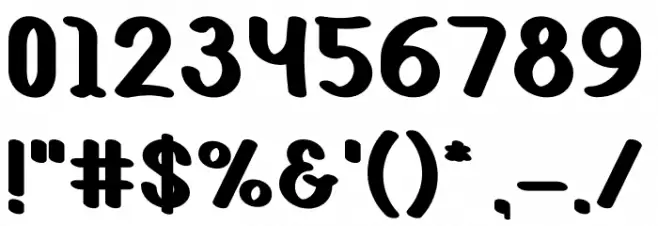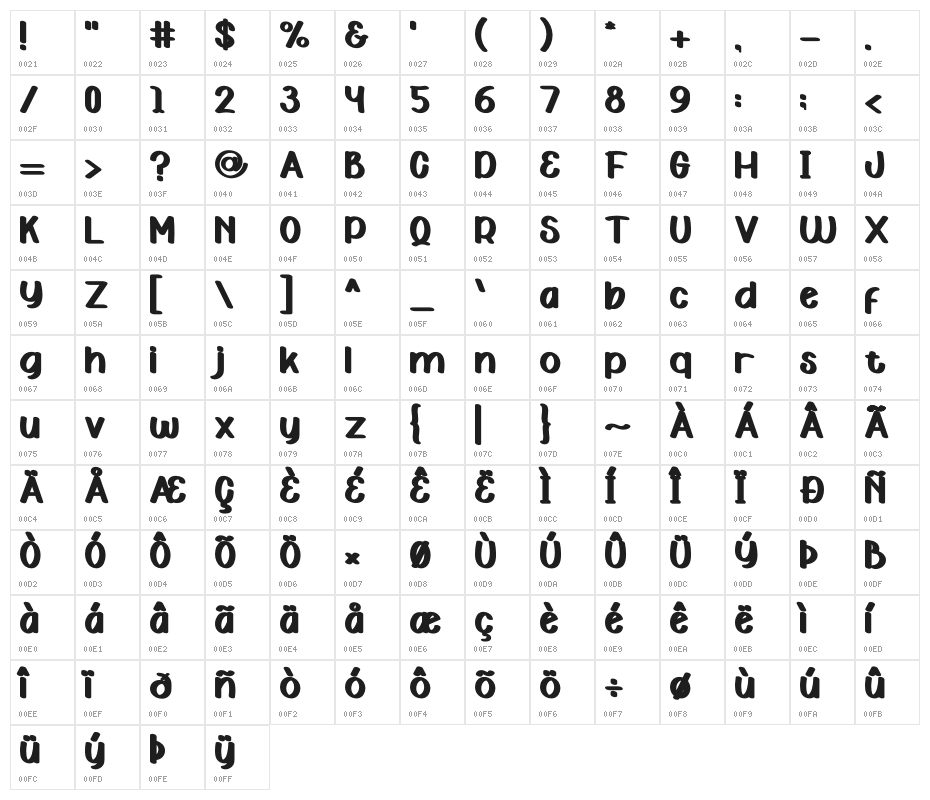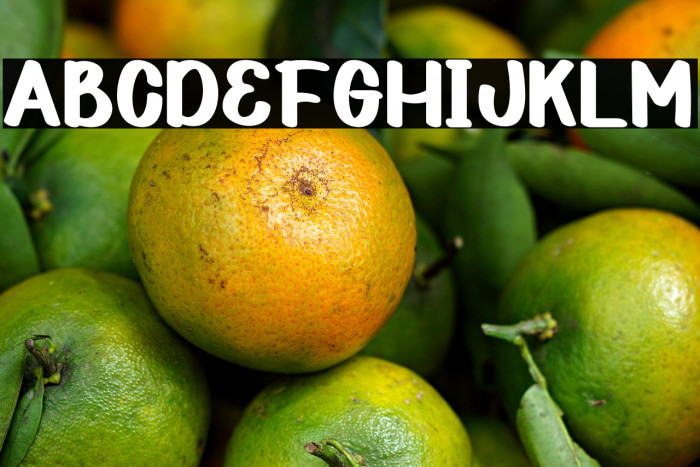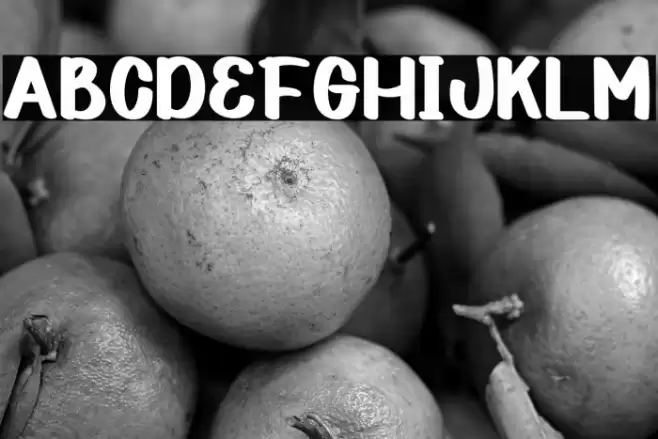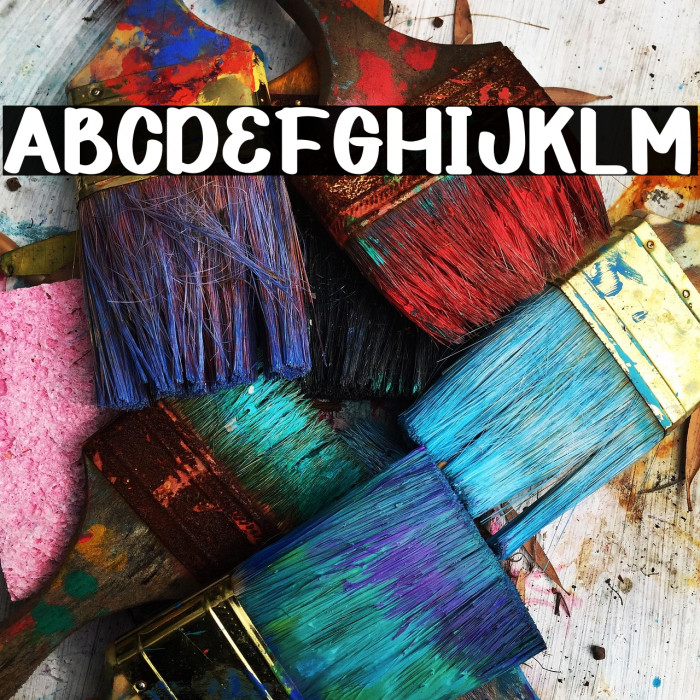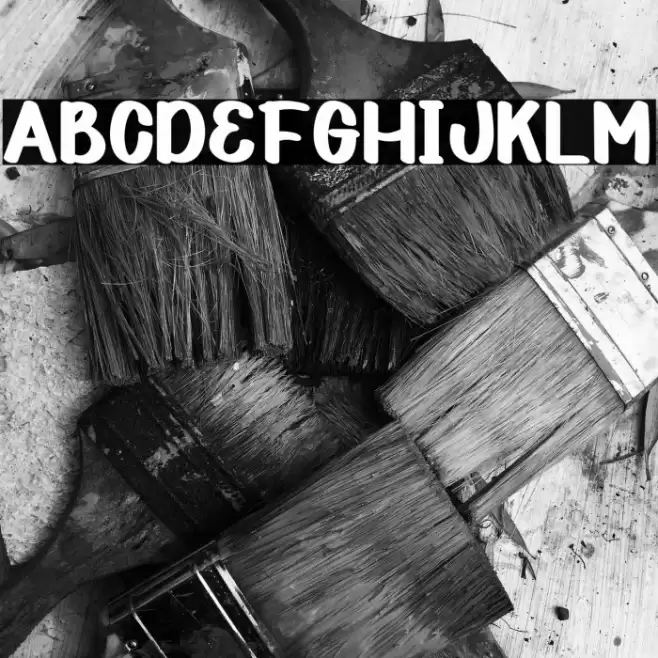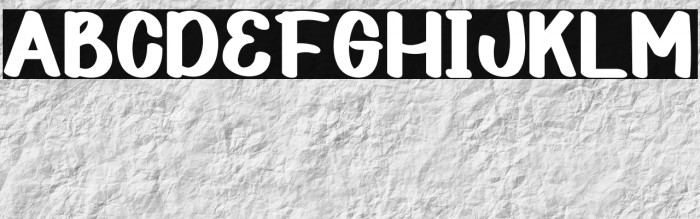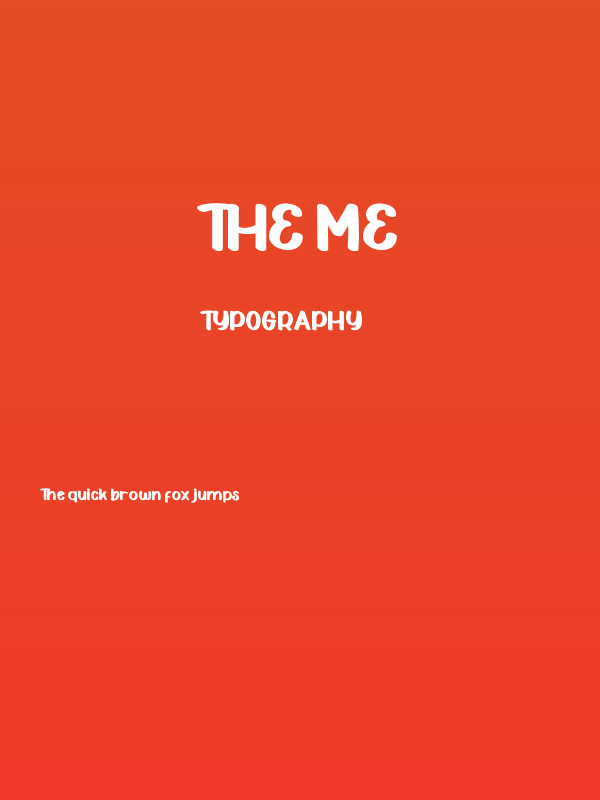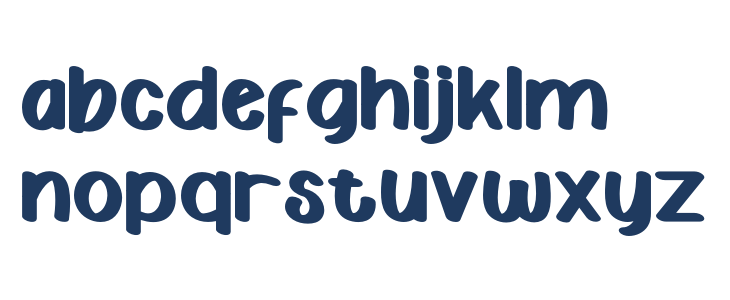
The Me Font
The Me Description
This font features a playful and bold style with rounded edges and a slightly irregular form, giving it a hand-drawn appearance. The characters are thick and substantial, providing a strong visual impact. The uppercase and lowercase letters maintain a consistent weight, while the numbers and special characters complement the overall design. Its unique style makes it suitable for projects that require a fun and approachable aesthetic.
| Overall Style | Playful, Hand-drawn |
| Proposed Projects | Ideal for children's books, playful branding, posters, and social media graphics. |